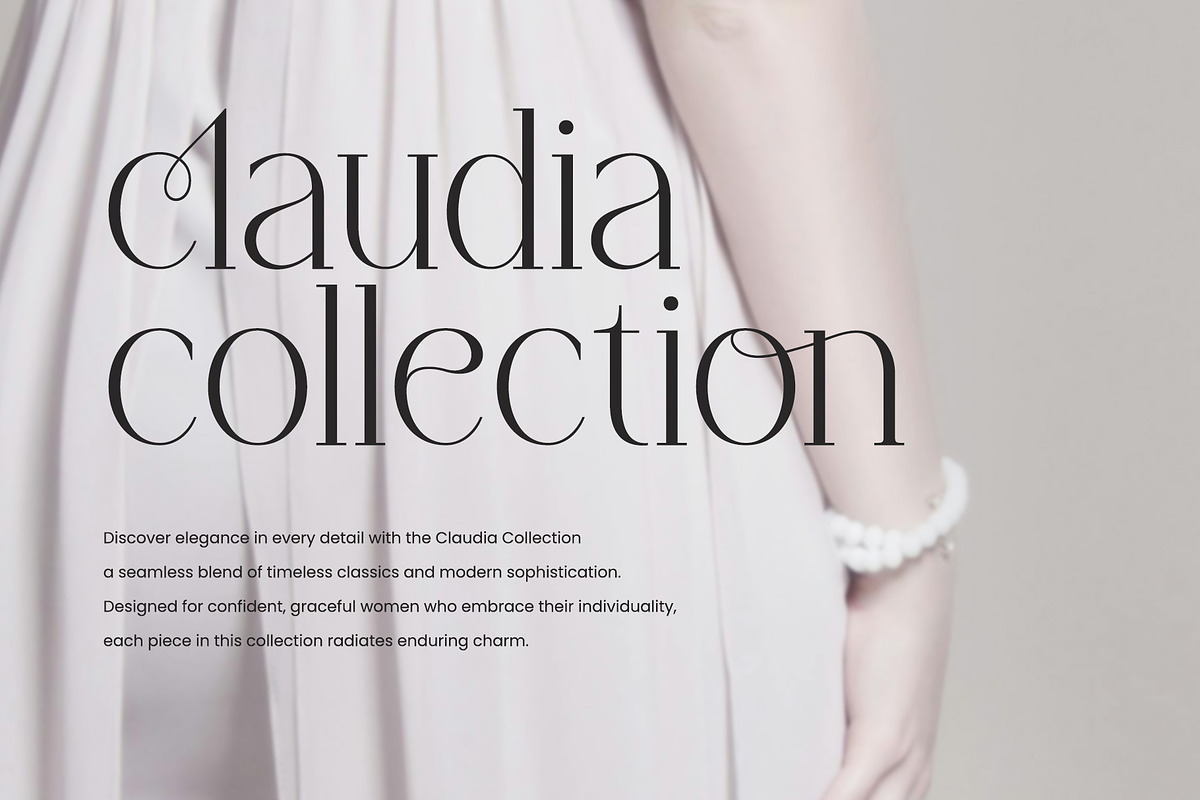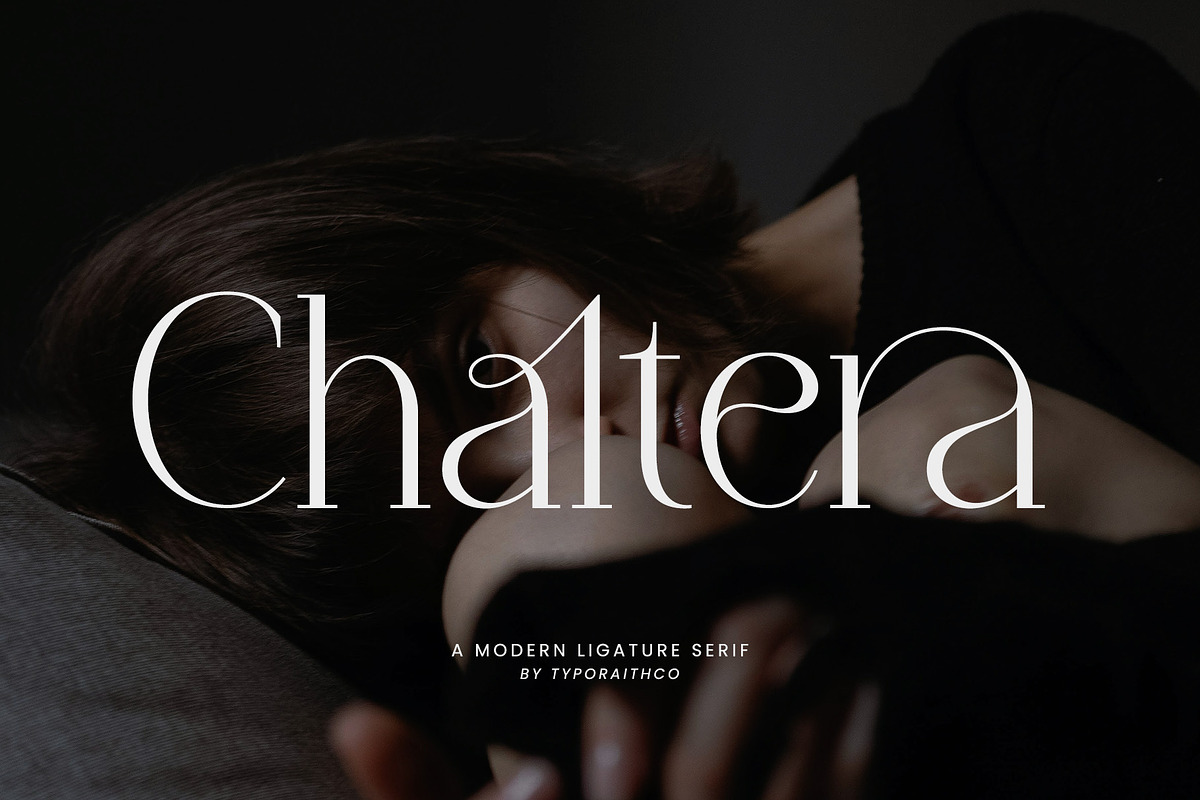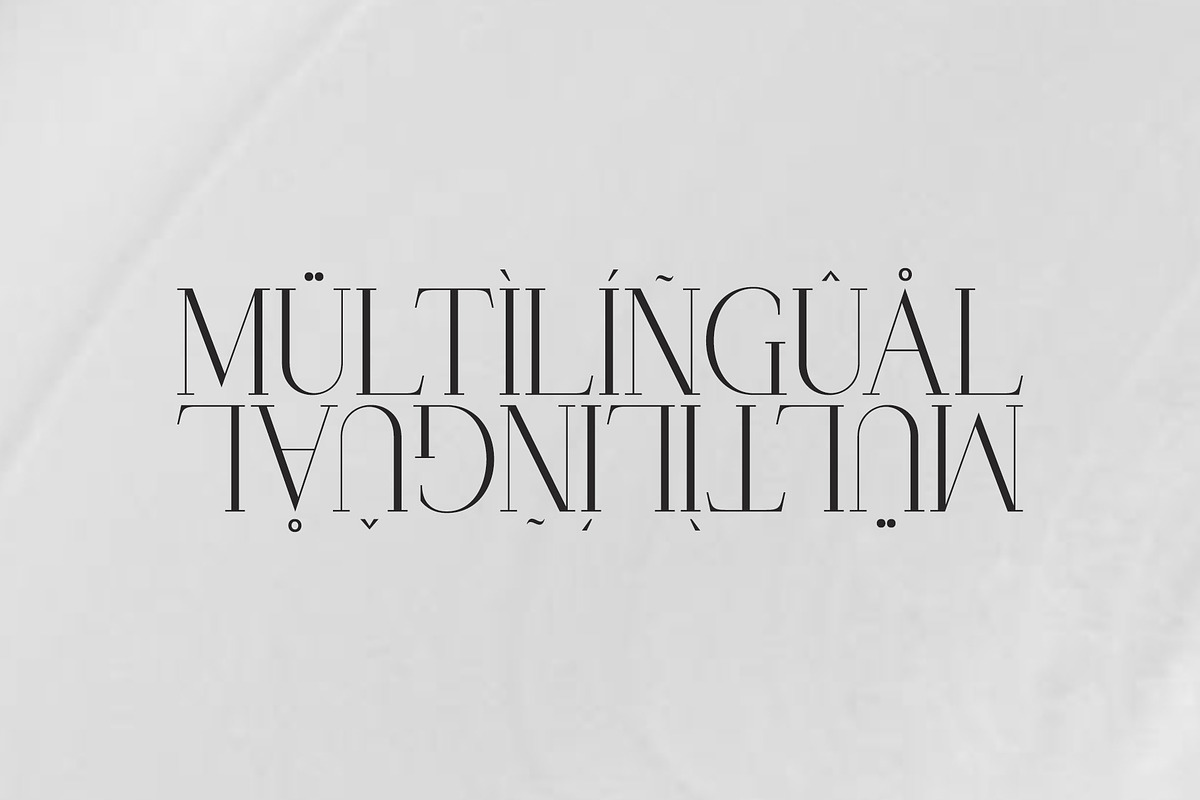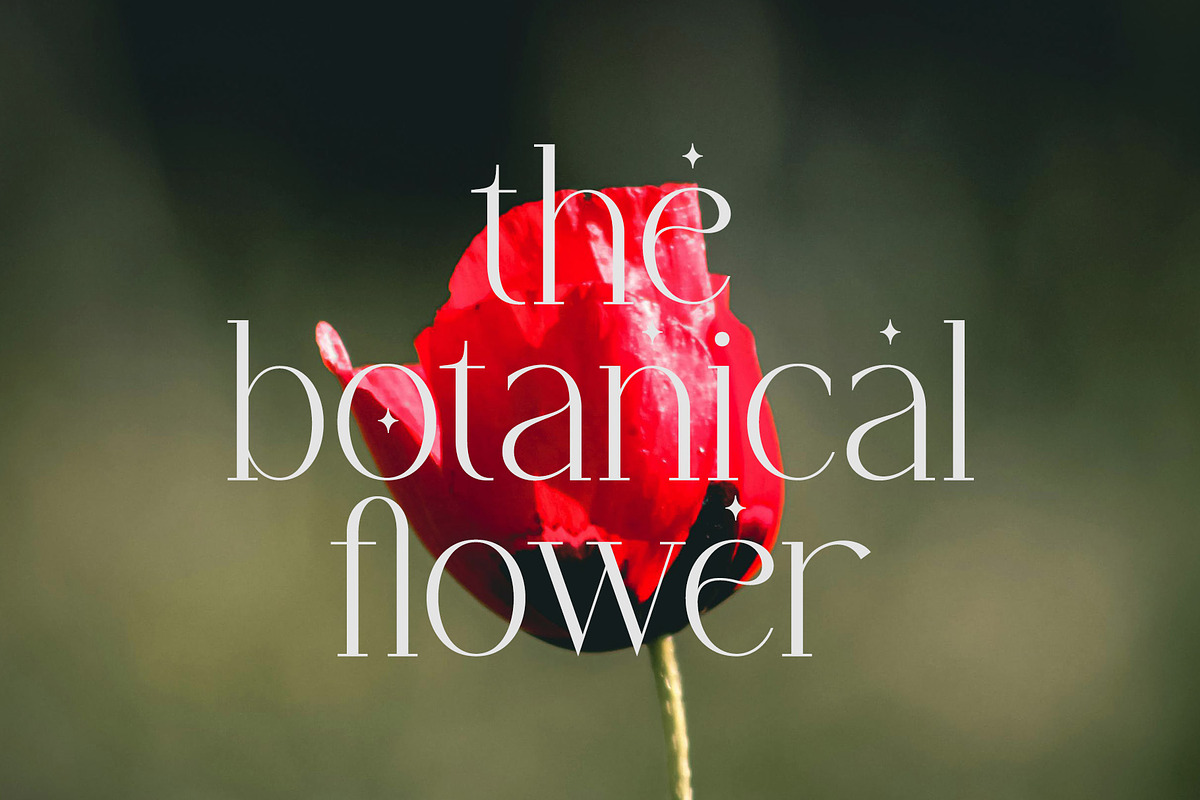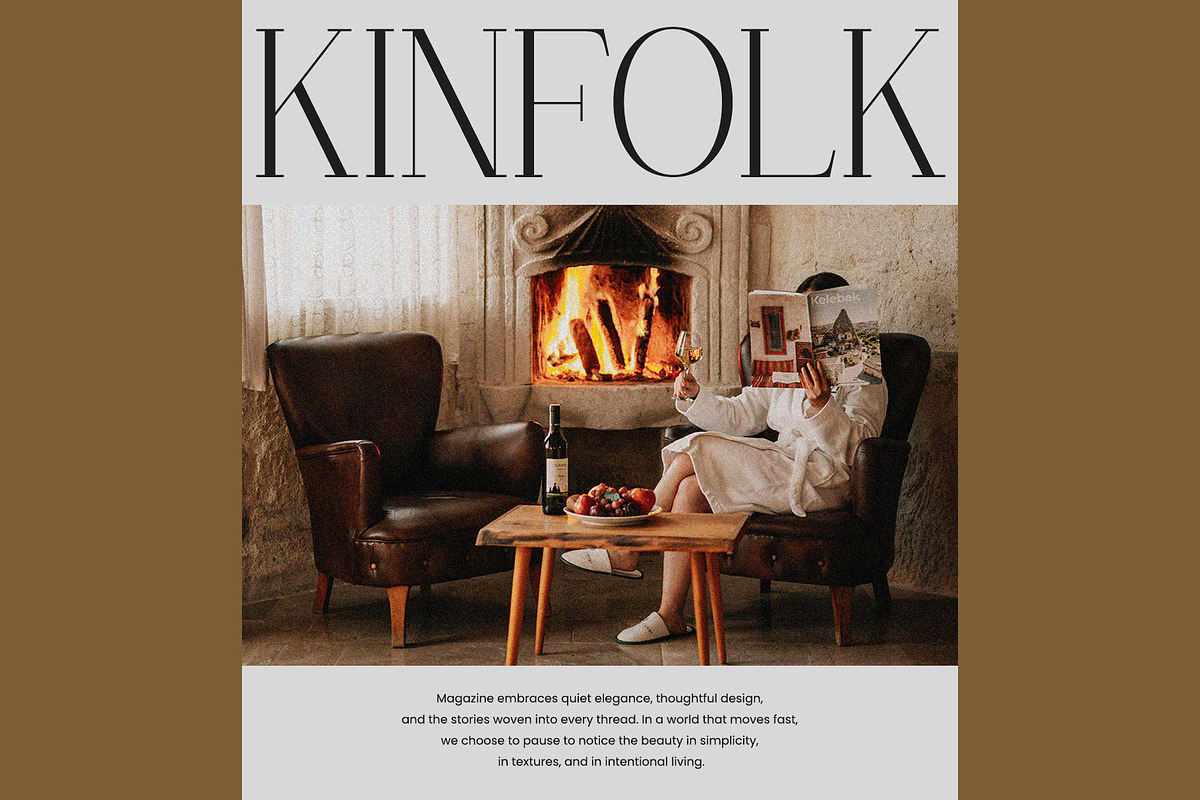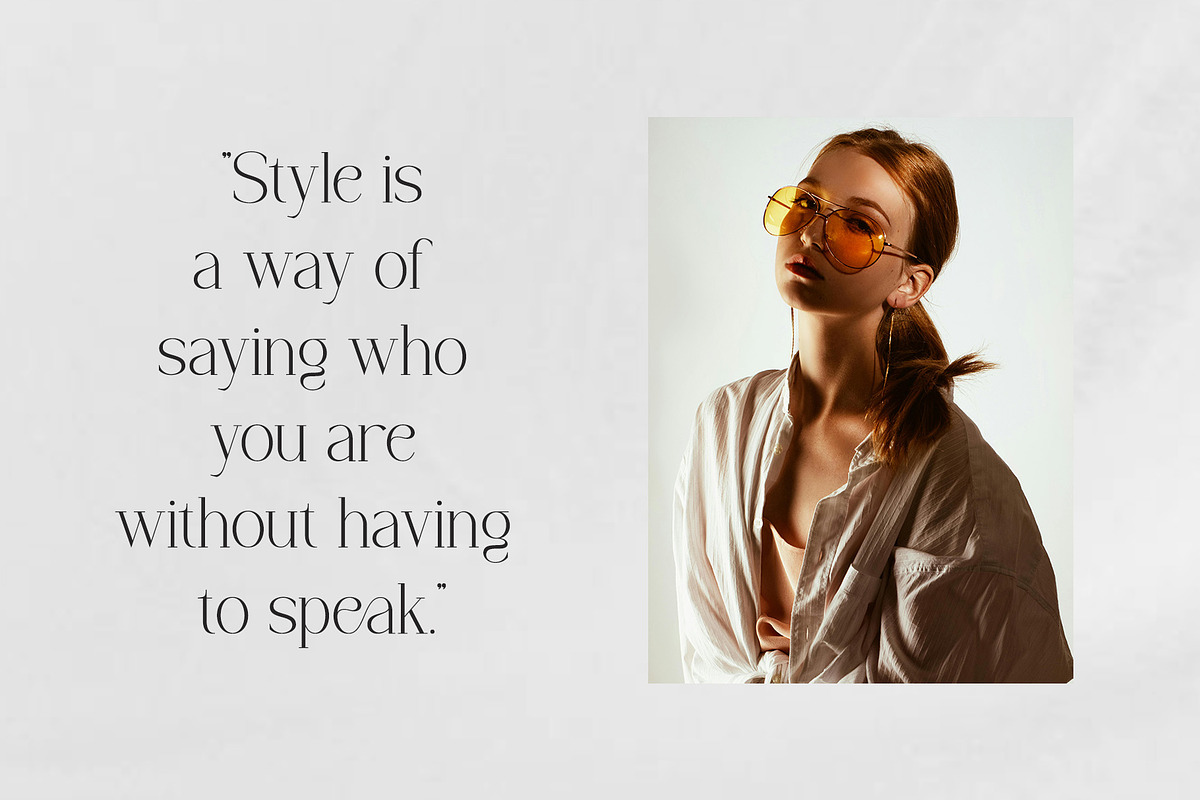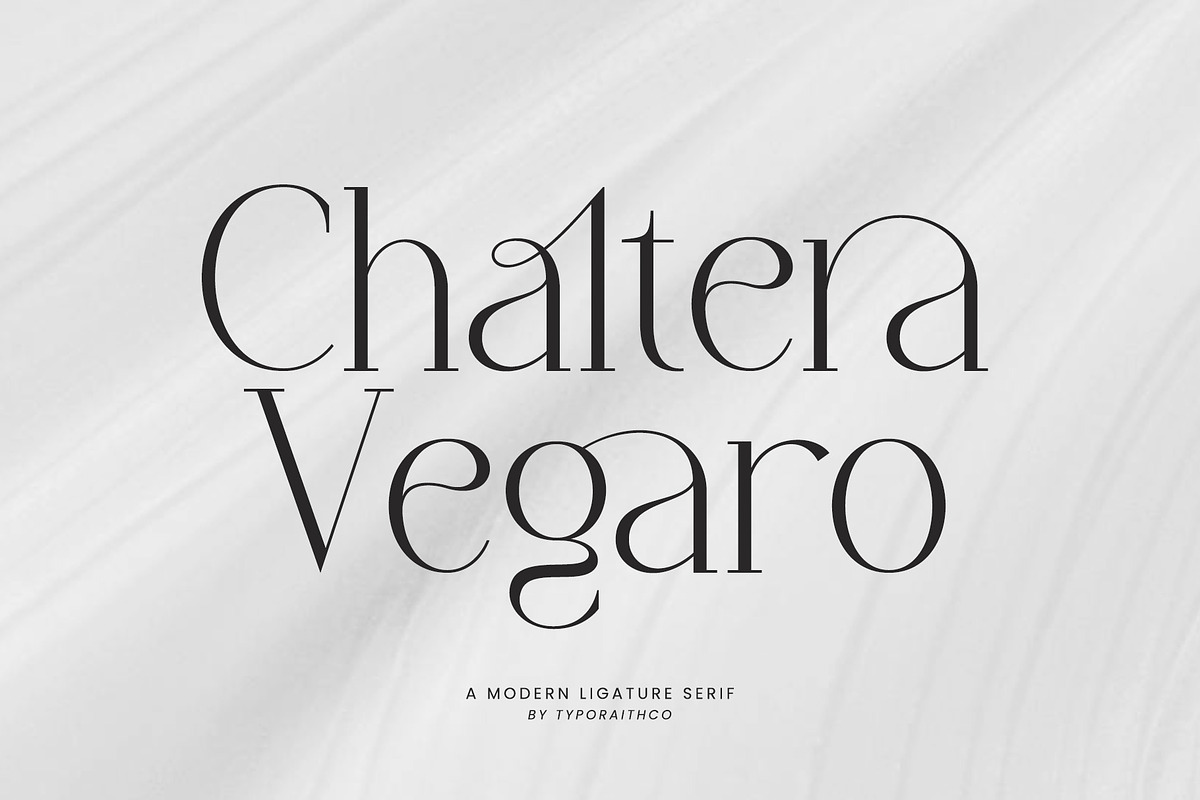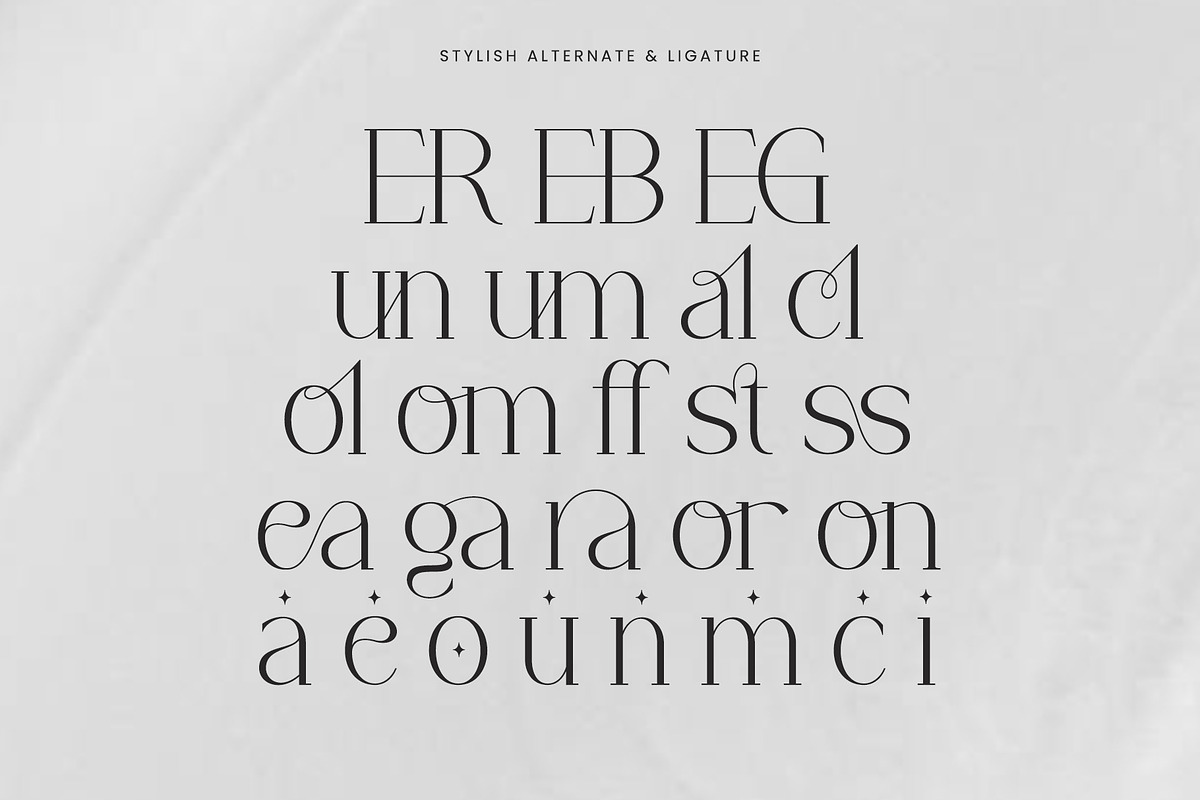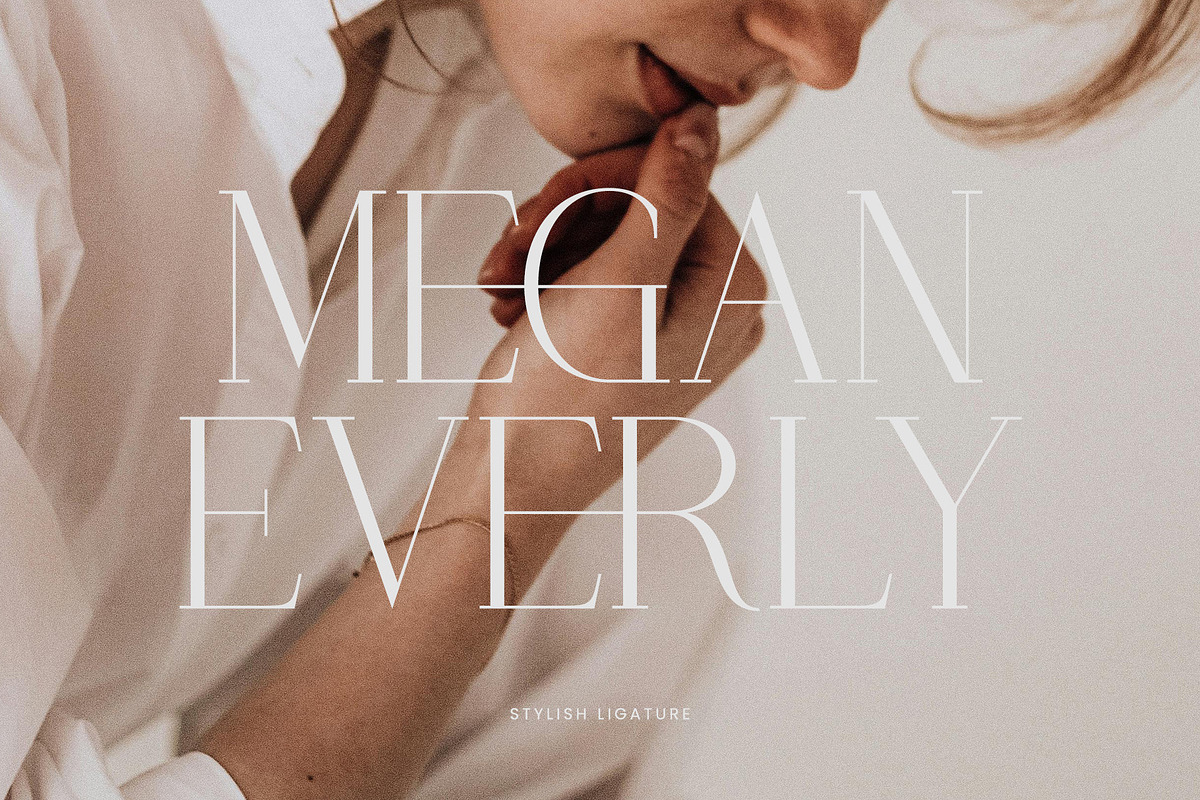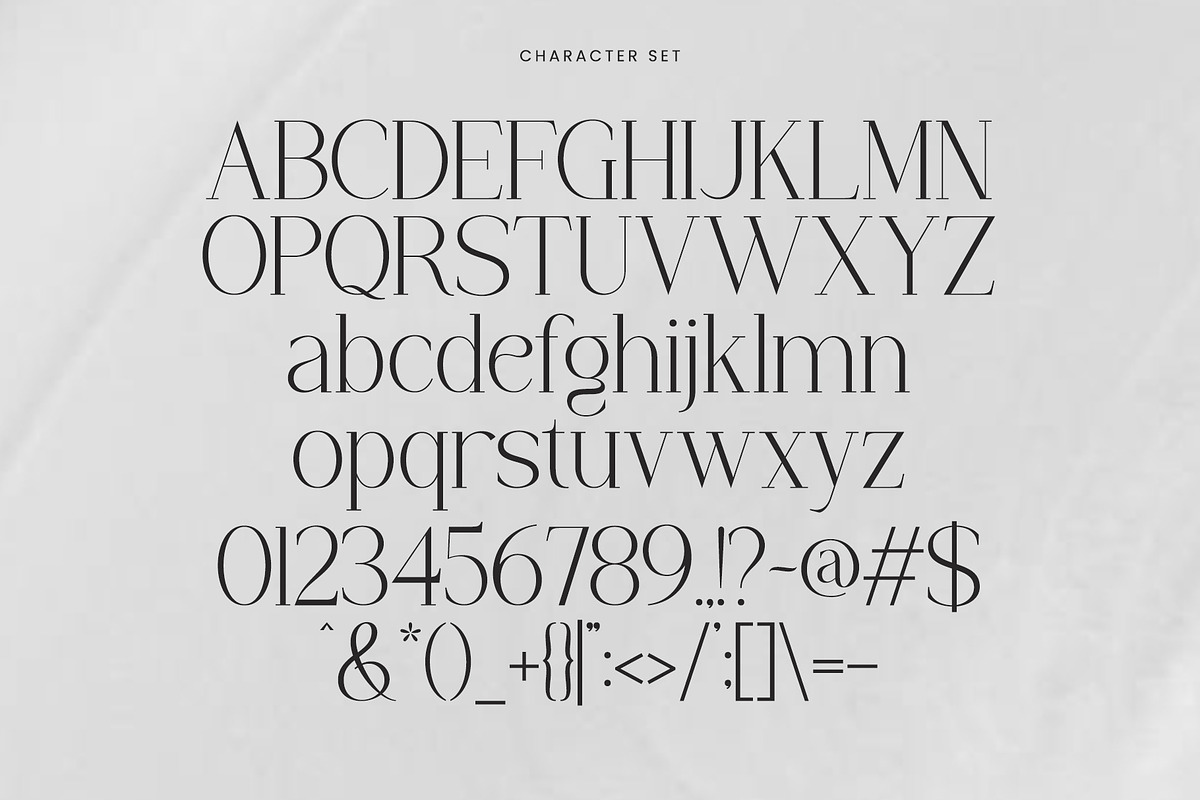
Chaltera | Modern Ligature Serif
Chaltera is a modern serif typeface with elegant ligatures and refined curves. Designed for branding, editorial design, and high end aesthetics, Chaltera brings a sense of timeless sophistication to any visual composition.
With unique ligature combinations and a strong yet graceful presence, this typeface is ideal for logo design, magazine titles, fashion campaigns, wedding invitations, and minimalist packaging.
- Stylish ligatures & Alternates
- Punctuation & multilingual support
- Perfect for luxury branding and editorial use